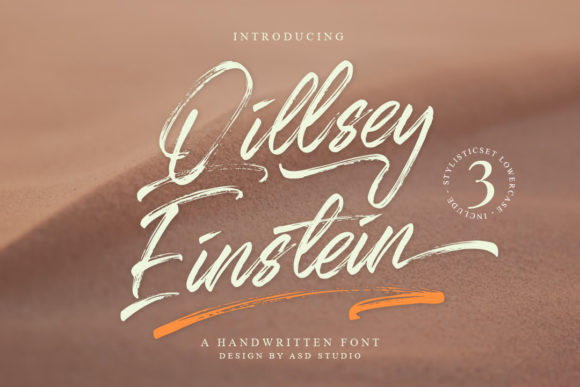
Qillsey Einstein Font for Better Branding
I still remember the exact moment I realized my business visuals were holding me back. It was a quiet Tuesday afternoon, and I was packing orders for my small online shop. The products themselves were beautiful—hand-poured soy candles with subtle, earthy scents—but the labels looked... flat. They were functional, sure, but they lacked soul. I had spent hours designing them using standard system fonts, thinking that "clean" meant "professional." But as I stuck the last label on a jar, I felt a disconnect. The warmth of the candle didn’t match the coldness of the text.
That was when I started looking for a change. I wasn’t looking for something overly ornate or impossible to read. I wanted something that felt human. Something that looked like it had been written by hand, with care and intention. That search led me to Qillsey Einstein, a handwritten font that completely shifted how I approach my brand identity.
Finding the Human Touch in Digital Design
In the world of e-commerce and social media, we often forget that there is a person on the other side of the screen. We scroll past thousands of polished, corporate images every day. To stand out, you need to feel authentic. This is where Qillsey Einstein shines. It is a script handwritten typeface that carries a natural scratch texture, giving it an organic, tactile feel. It doesn’t look like it was generated by a machine; it looks like it was scribbled quickly but lovingly with a pen or marker.
For a small business owner, this distinction matters. When I swapped my old, rigid typography for Qillsey Einstein, the vibe of my brand changed instantly. It became warmer. More approachable. It signaled to my customers that there is a real human behind these products, not just a warehouse algorithm. This is the power of choosing the right premium font. It is not just about aesthetics; it is about communication.
From Packaging to Social Media: A Versatile Tool
One of the biggest challenges for entrepreneurs is maintaining consistency across different platforms. You have your physical packaging, your website banners, your Instagram stories, and your email newsletters. Using Qillsey Einstein helped tie all these elements together into a cohesive brand identity.
Let’s talk about packaging first. I used the font for the main titles on my candle labels. Because it has that slight scratchy texture, it pairs beautifully with kraft paper and minimalist designs. It doesn’t overpower the design; instead, it adds a layer of craftiness that appeals to DIY enthusiasts and boutique shoppers. Whether you are running a bakery updating its box designs, a skincare brand labeling serum bottles, or a florist creating thank-you cards, this creative font adapts effortlessly.
Beyond physical products, Qillsey Einstein is a powerhouse for digital assets. I started using it for my social media graphics, specifically for headlines and short quotes. On Instagram, where visual appeal drives engagement, having a distinctive display font helps stop the scroll. It works wonderfully for:
The key is knowing when to use it. Qillsey Einstein is best suited for headlines, logos, and short phrases. It is a script font with personality, so it demands attention. Using it for long paragraphs of body text would reduce readability, especially on mobile screens. Instead, I pair it with a clean, simple sans serif font for the detailed information. This contrast creates a balanced look that is both stylish and easy to read.
Building Trust Through Typography
Typography affects first impressions more than most people realize. A messy or mismatched font can make a business look amateurish, while a well-chosen typeface builds trust. When customers see consistent, thoughtful design, they perceive the brand as more reliable and professional. Qillsey Einstein contributes to this perception by offering a polished yet handmade look. It suggests that attention to detail is a priority.
For example, imagine a café redesigning its menu. Using a stiff, corporate font might make the place feel sterile. But using a handwritten font like Qillsey Einstein for the section headers or special item names makes the menu feel inviting and artisanal. It tells the customer that the food is made with care. Similarly, for a coaching brand or a consultant, using this font in email signatures or business cards can make the interaction feel more personal and less transactional.
Practical Tips for Using Qillsey Einstein